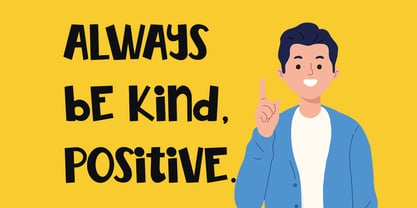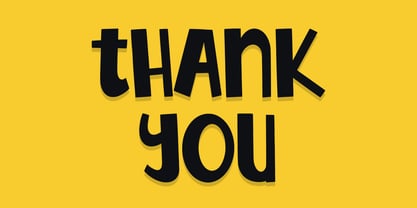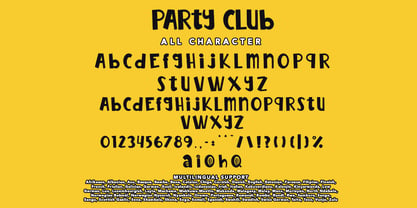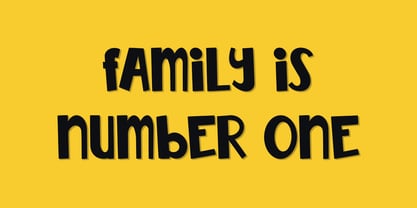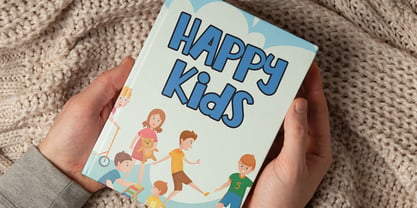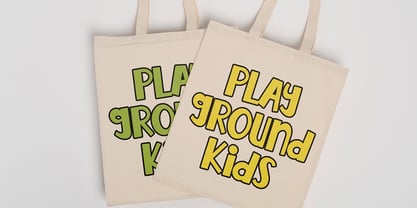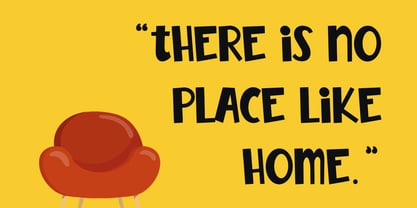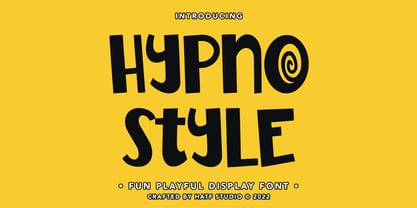
Hypno Style
by Hatftype
The Hypno Style Font Family was designed by Asep Rendi and published by Hatftype. Hypno Style contains 1 styles. More about this family
Hypno Style is a Playful Display Font. A typeface designed to showcase characters that are fun, expressive, and full of life, similar to the handwritten style often found in comics. With bold, linear, and often eccentric shapes, this font is designed to make a strong, clear impression when used in titles, typical comic text, or graphic designs with a comic feel. The power of this font lies in its ability to convey emotion, laughter, and visual dynamics through each letter. With bold, bold lines and characters depicting action scenes, the Playful Display Font creates an entertaining and iconic atmosphere, making it suitable for creative projects that want to convey a comic touch in their design.
Designers: Asep Rendi
Current Foundry: Hatftype